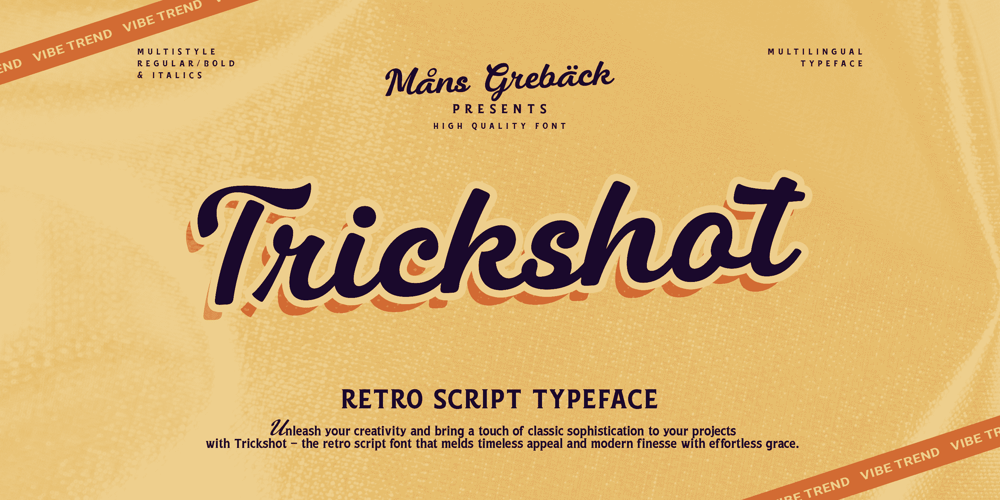
Trickshot Font Family was designed by Måns Grebäck and published by Mans Greback. Trickshot contains 4 styles and family package options. Trickshot is a handmade script font that evokes a sense of rustic charm and enthusiasm. Its bold and expressive style makes it an excellent choice for designs that require a strong visual impact, such as sports team logos, outdoor event posters, and country-themed branding.The Trickshot font family includes four versatile styles: Regular, Bold, Italic, and Bold Italic, giving you the flexibility to mix and match styles to create unique and eye-catching designs.